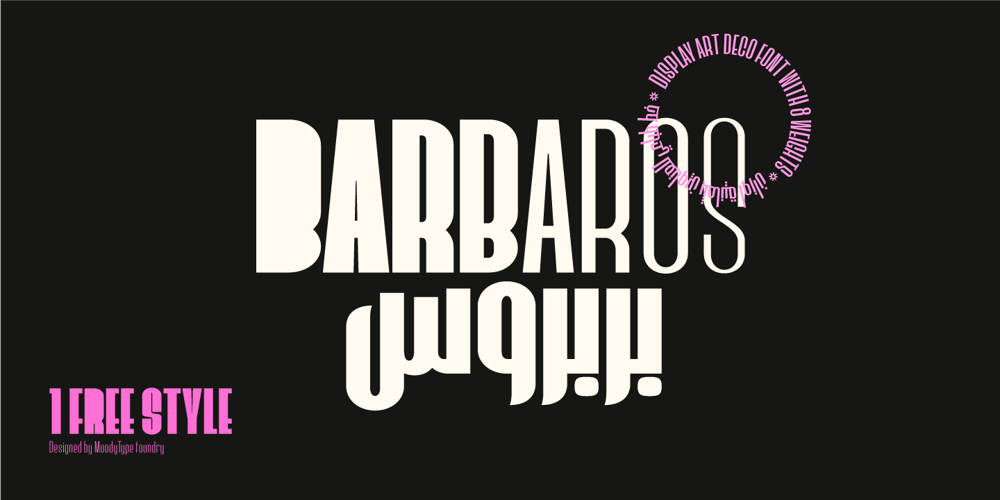
Barbaros Font Family was designed by Mahmoud Abd El-Ghany and published by MoodyType. Barbaros contains 8 styles and family package options. An Art Deco condensed display sans font with 8 styles, +800 glyphs, +100 ligatures, +30 languages and many opentype features.It is perfect for poster designs, magazines, book covers, logotypes, headlines, newspapers and press. It’s bold, daring, modern, geometric and covers a good range of weights from light to block.